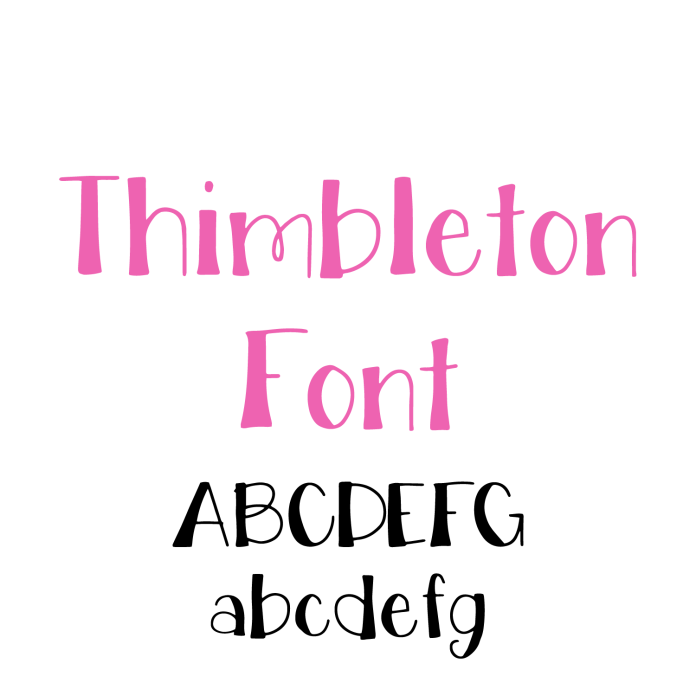
Meet Thimbleton Font – a cute handwritten font that brings sweet charm and warmth to all your creative projects! With its soft strokes and friendly style, this font is perfect for greeting cards, labels, stickers, scrapbooking, quotes, and holiday crafts. Designed for easy readability and smooth cutting, Thimbleton works beautifully with vinyl, HTV, cardstock, and more. Whether you're making personalized gifts, or designing whimsical printables, this delightful font adds a cozy, handmade feel. Perfect for beginners and seasoned makers alike, Thimbleton is a must-have for any font collection. Download now and start creating magic!